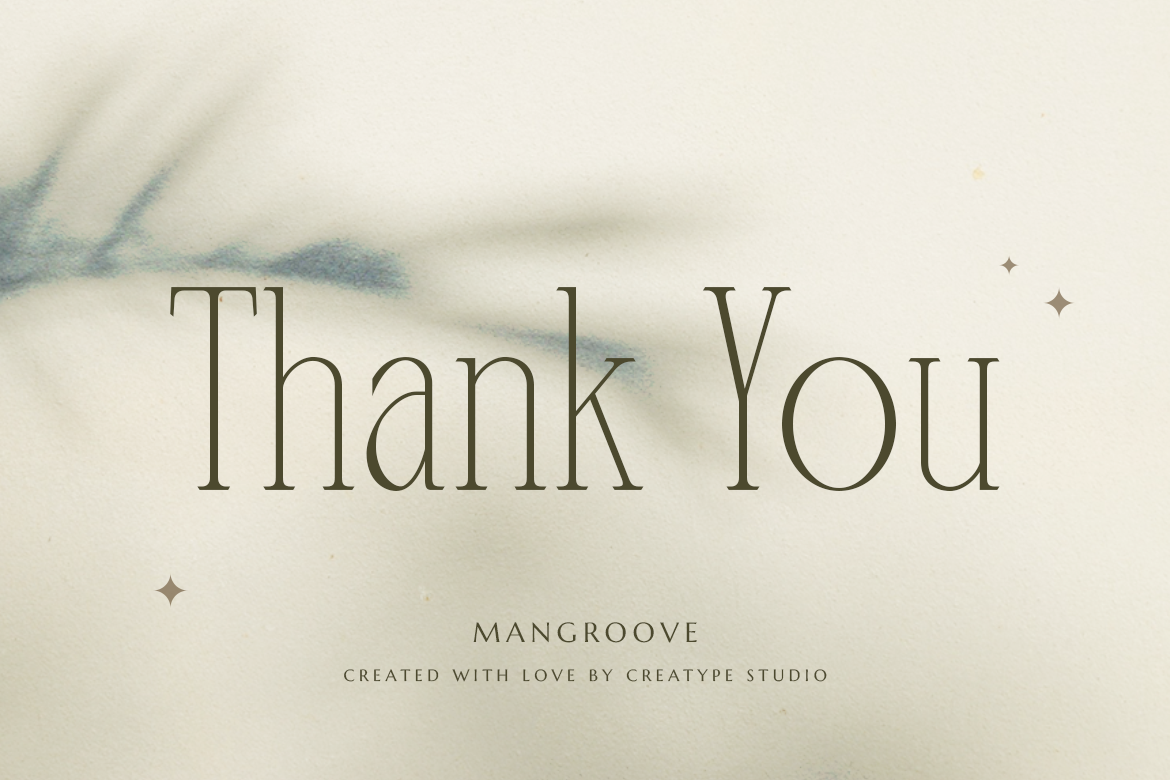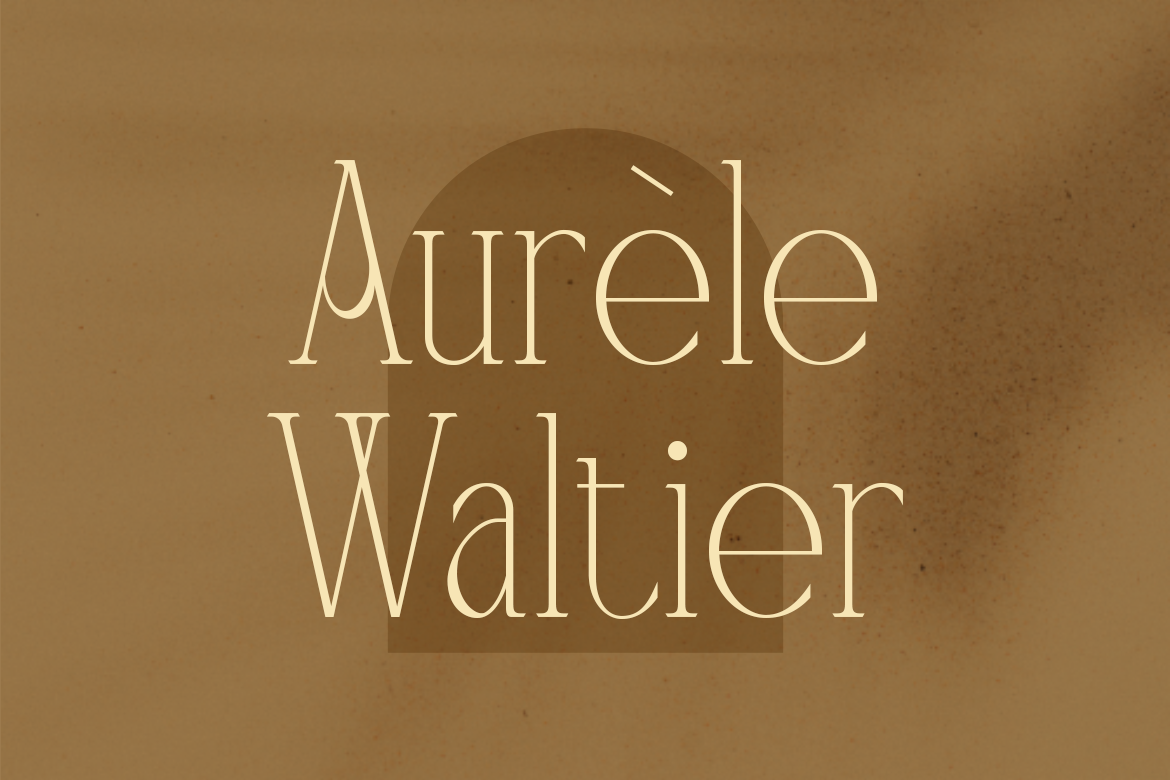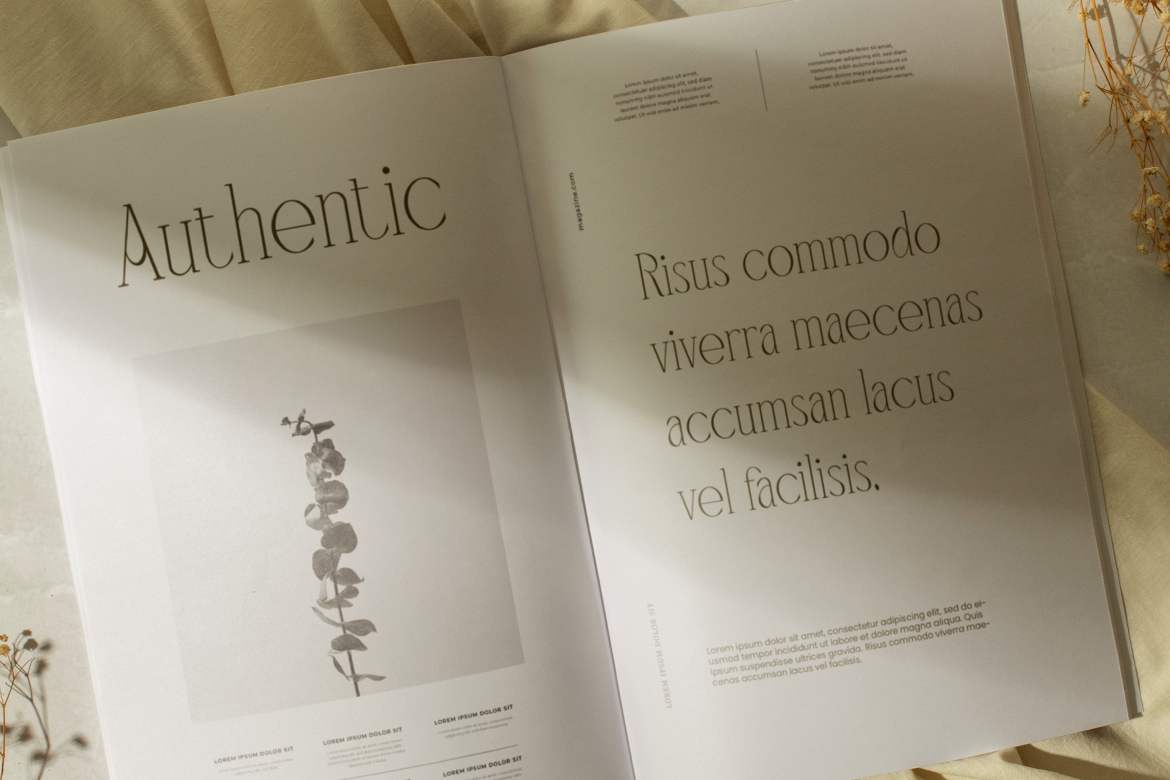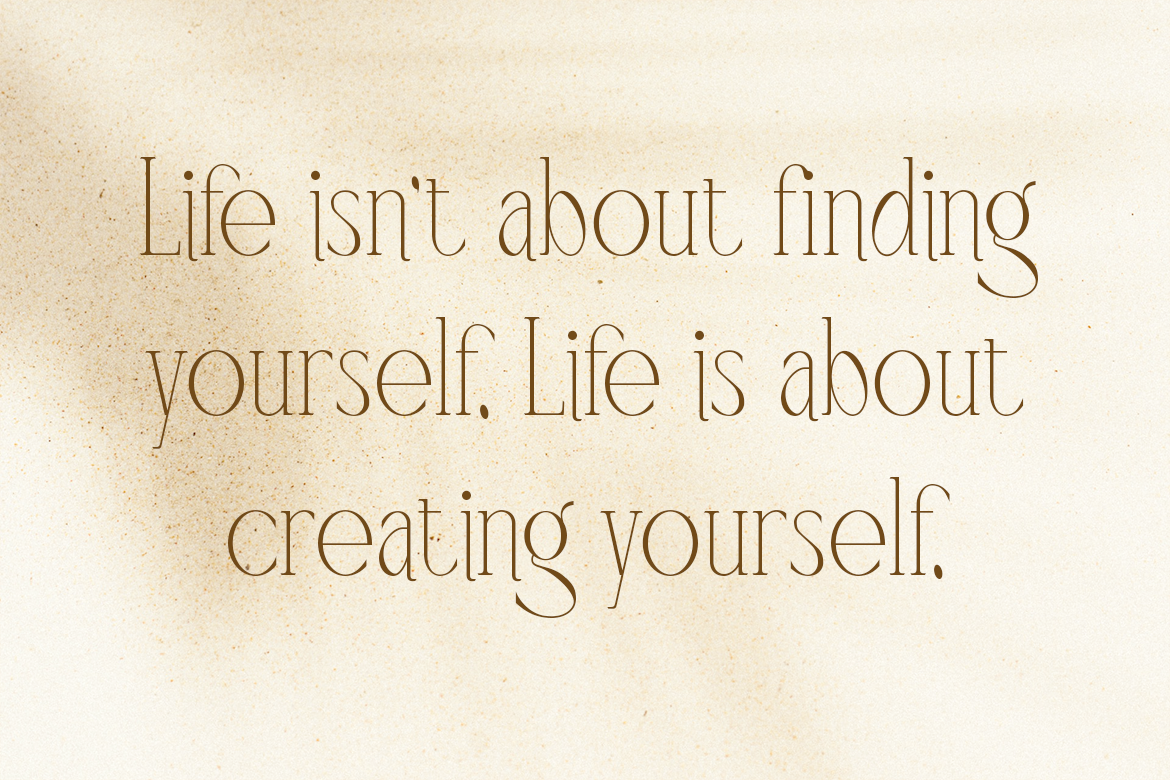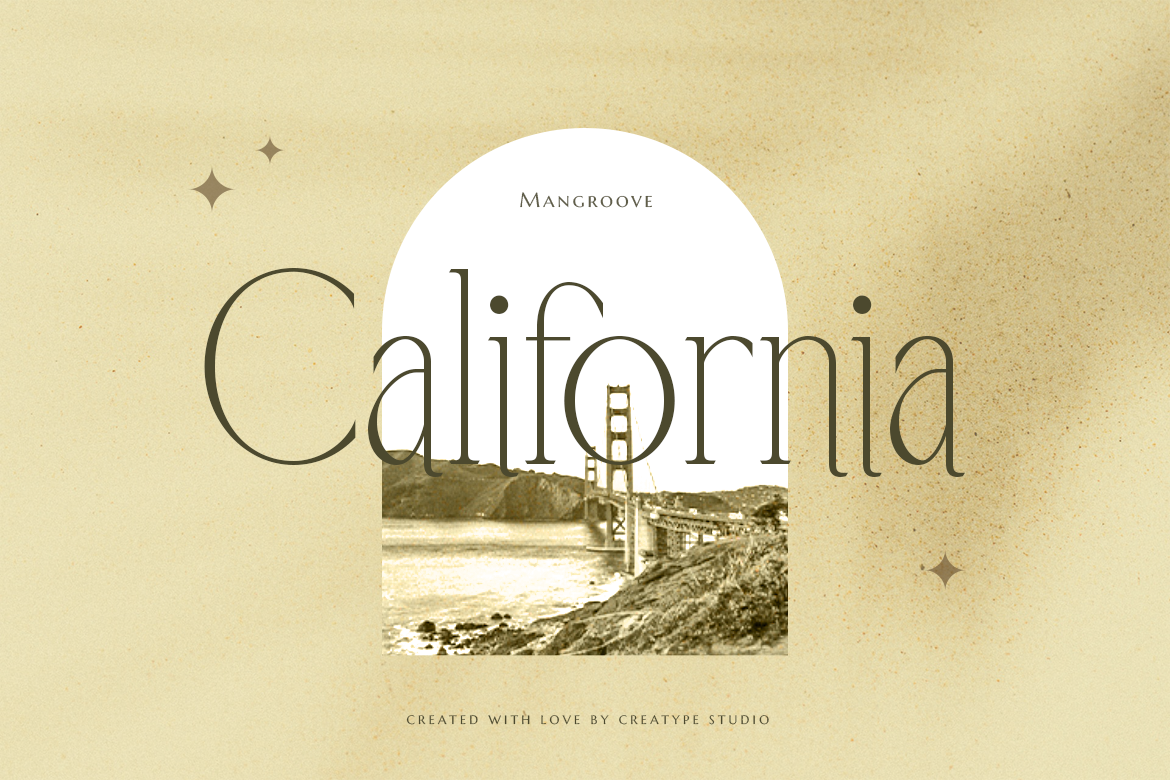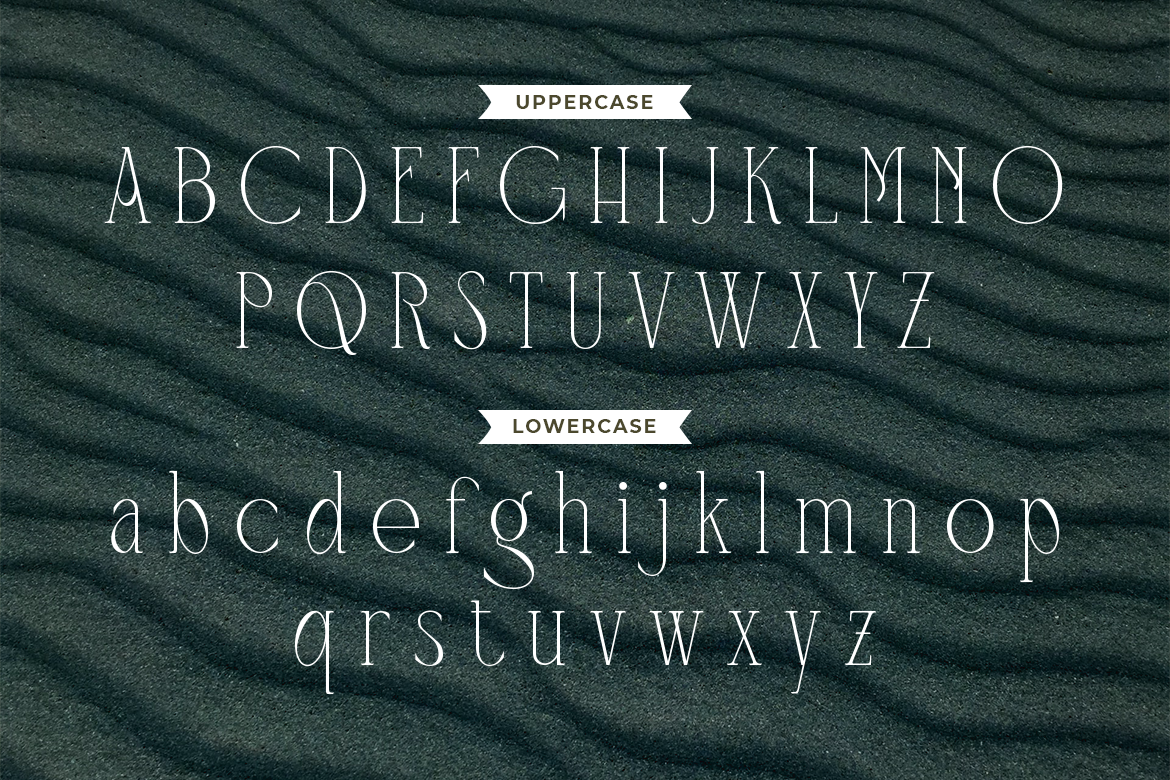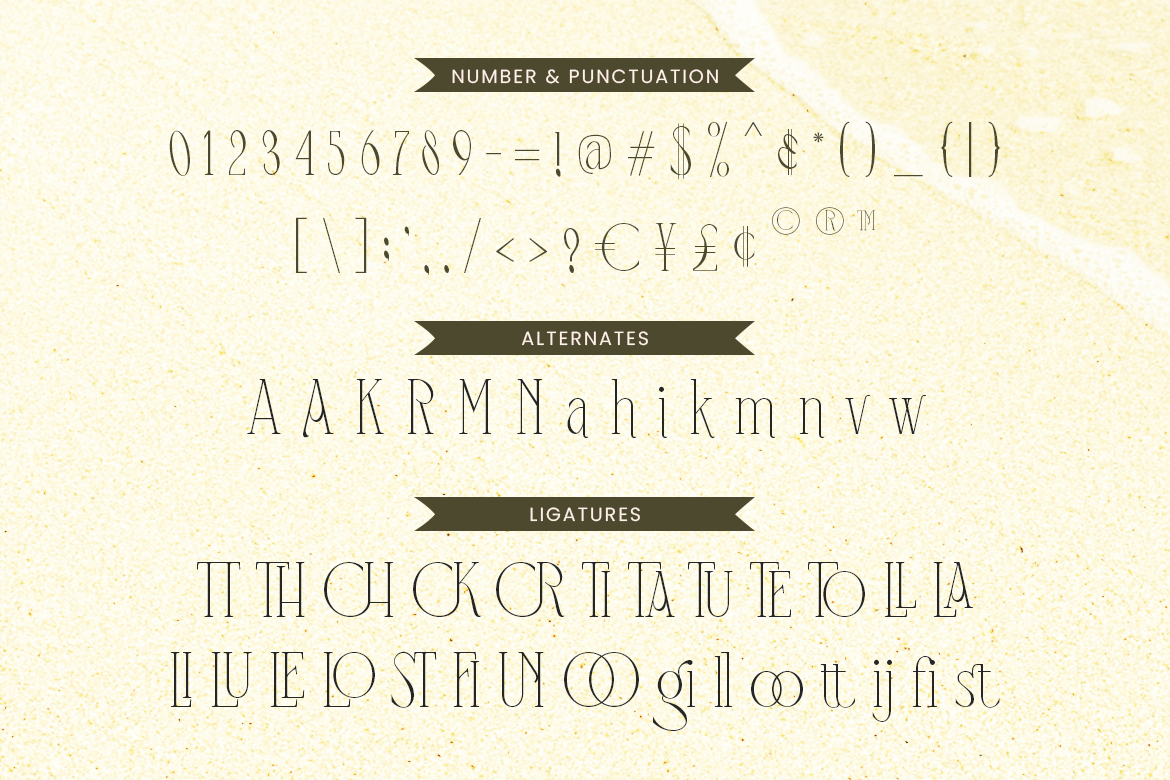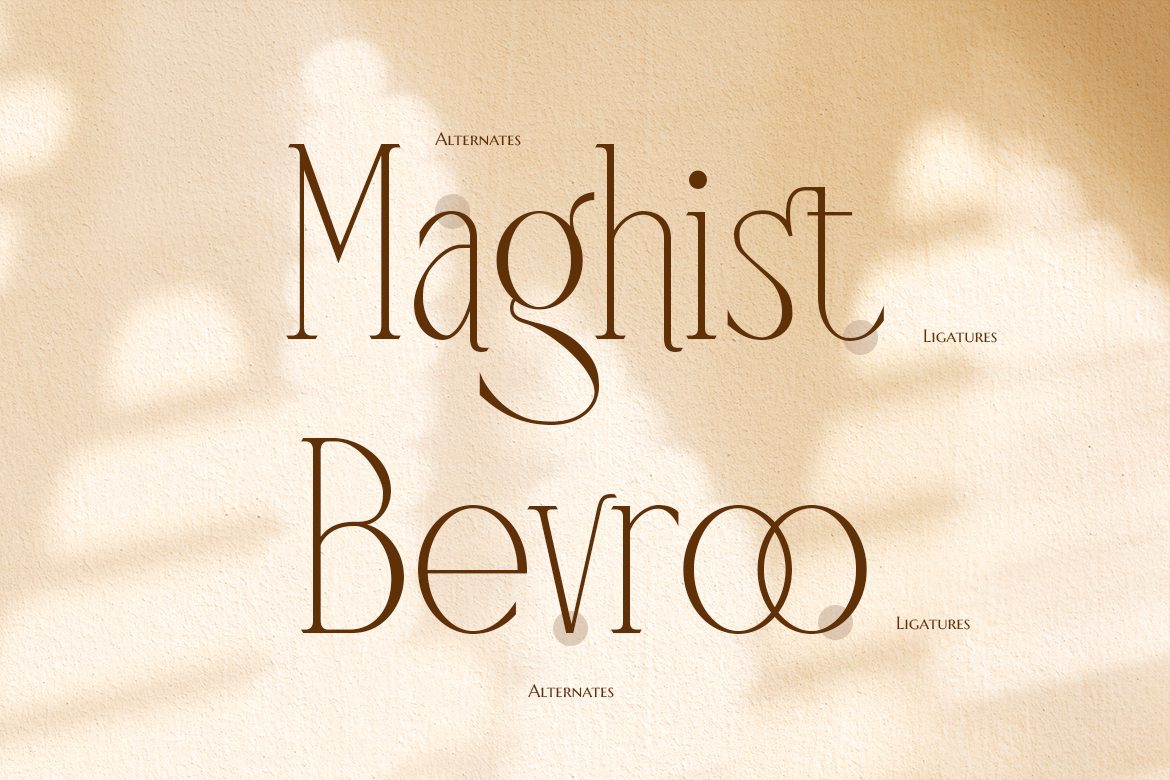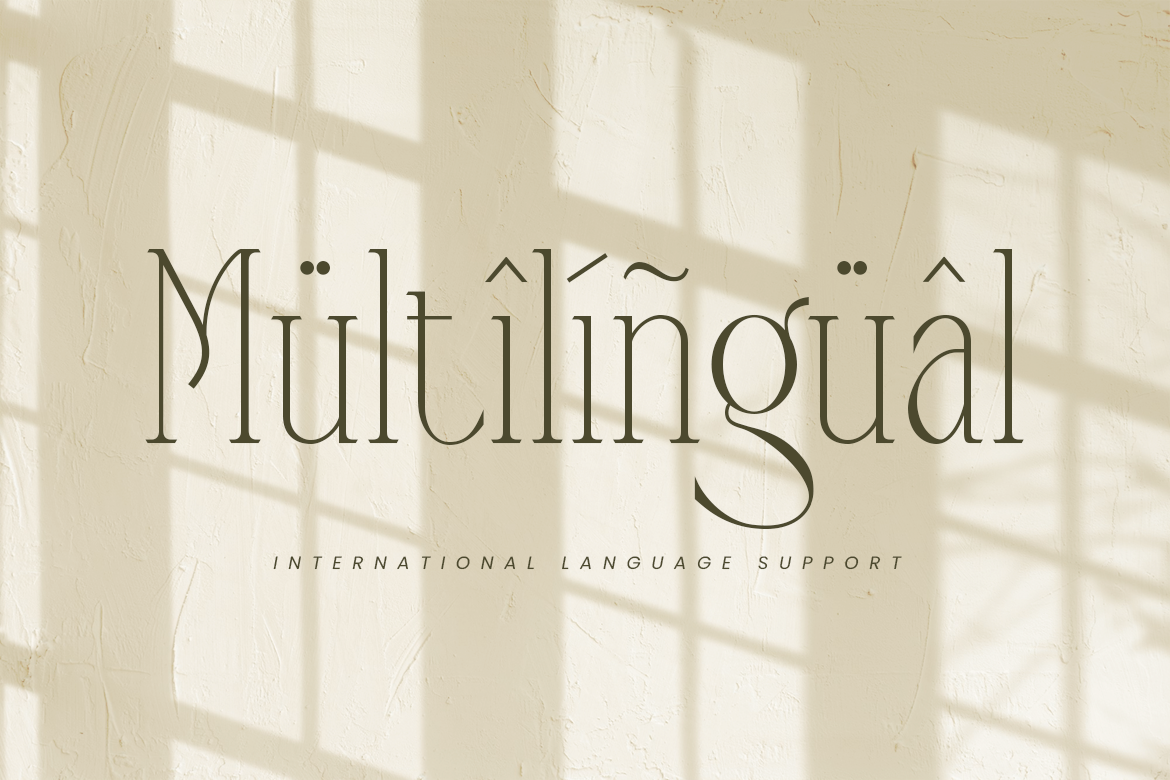
Mangroove Modern Serif
Mangroove, the elegant sans serif typeface that blends minimalism with delightful ligatures yet still playful
Mangroove is perfect for branding projects, logos, wedding designs, social media posts, advertisements, product packaging, product designs, label, photography, watermark, invitation, stationery, and any projects that need handwriting taste.
• Ton of glyphs
• Ligature & Alternate